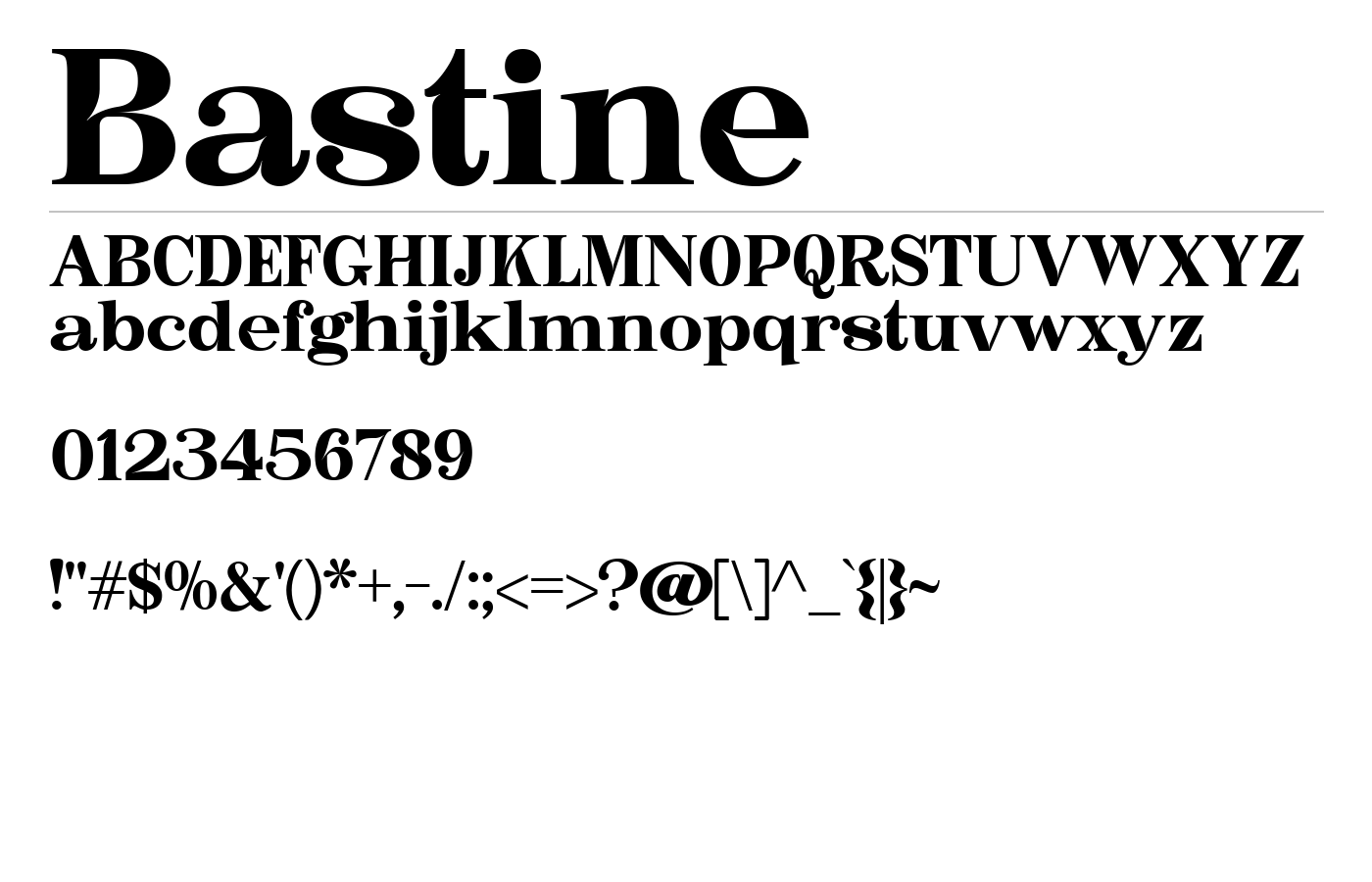
Bastine is a bold, serif typeface with a strong presence and high contrast between thick and thin strokes, featuring thick, bracketed serifs that give it a classic yet authoritative look. Its balanced proportions and distinctive letterforms, like the double-story 'g' and unique 'Q' tail, make it ideal for logos, headlines, and editorial use where a sense of tradition and confidence is desired. This font works well in fashion, luxury branding, and print media, delivering a refined and elegant style with clear readability.
Bastine Font
About Bastine Font